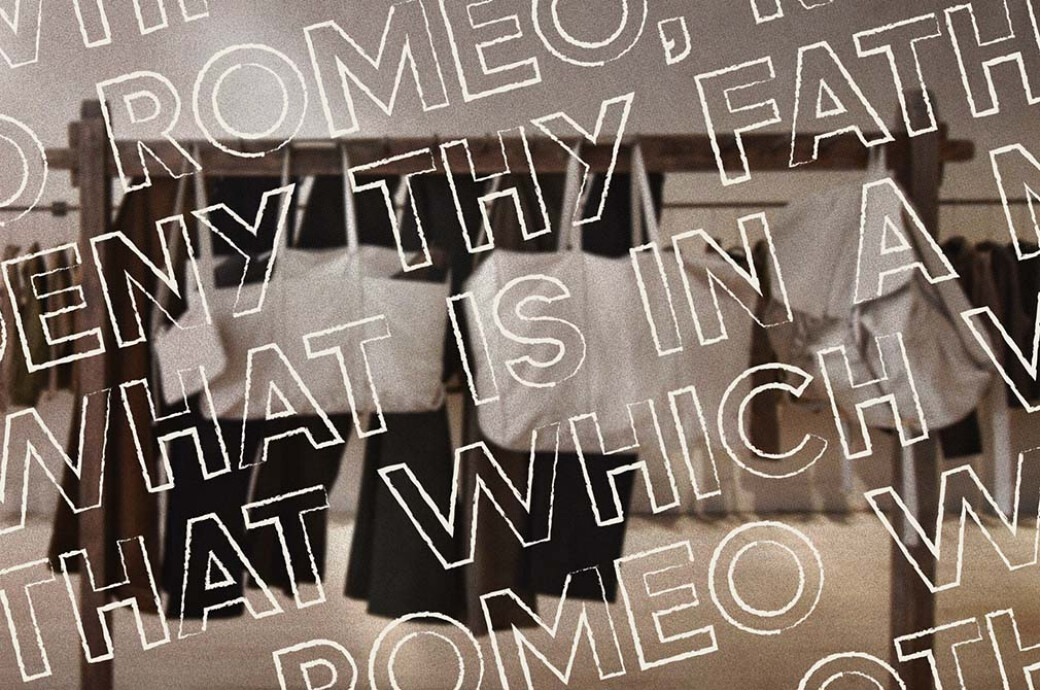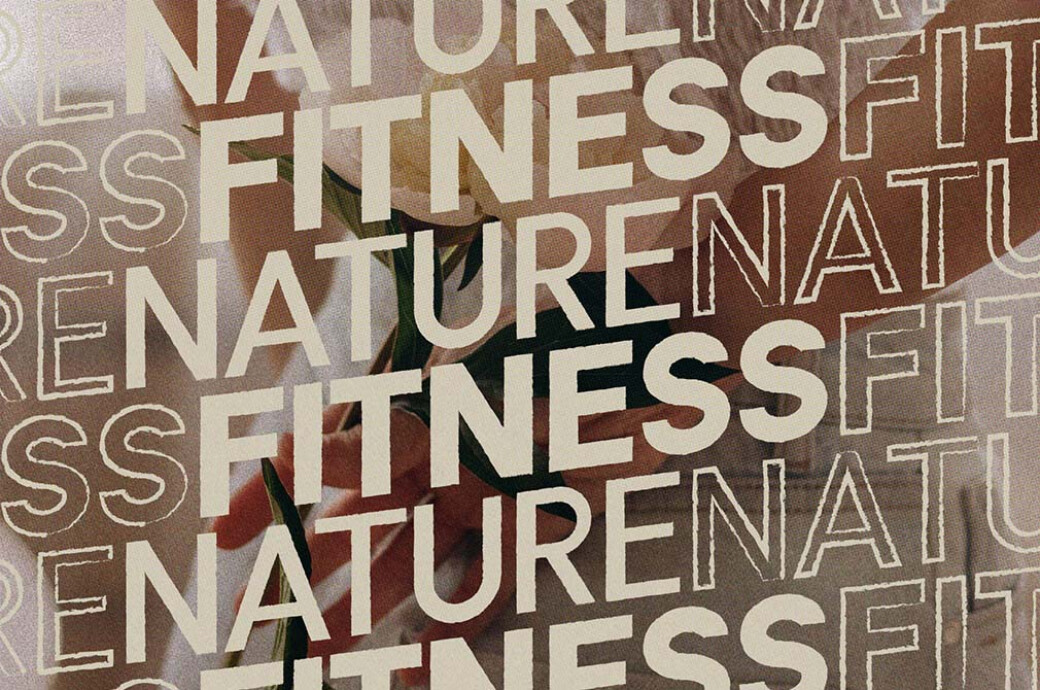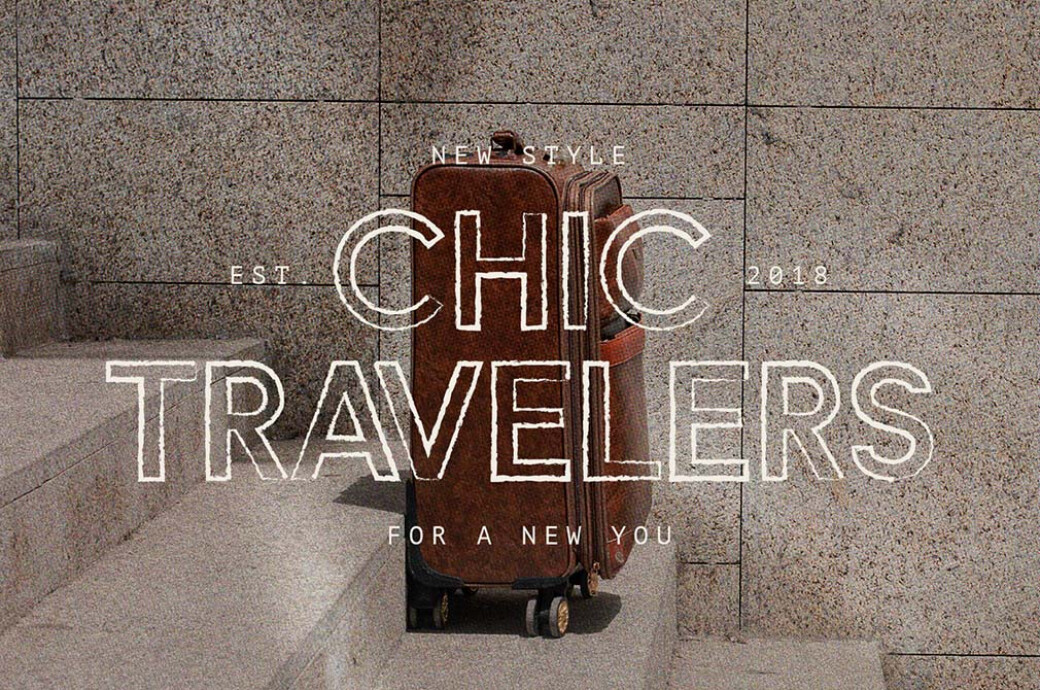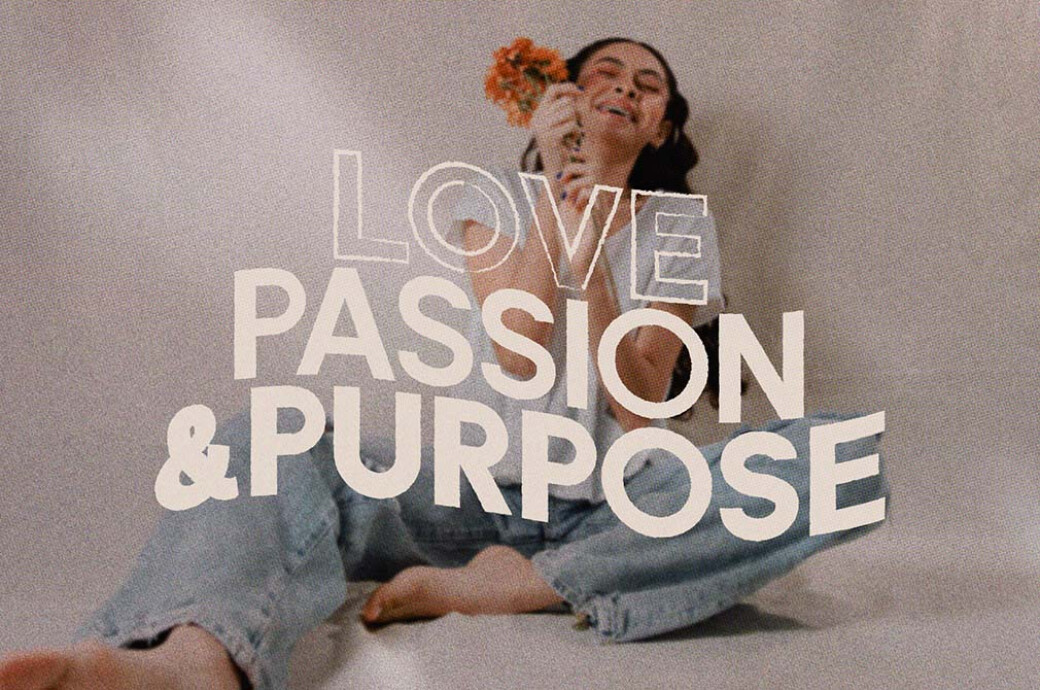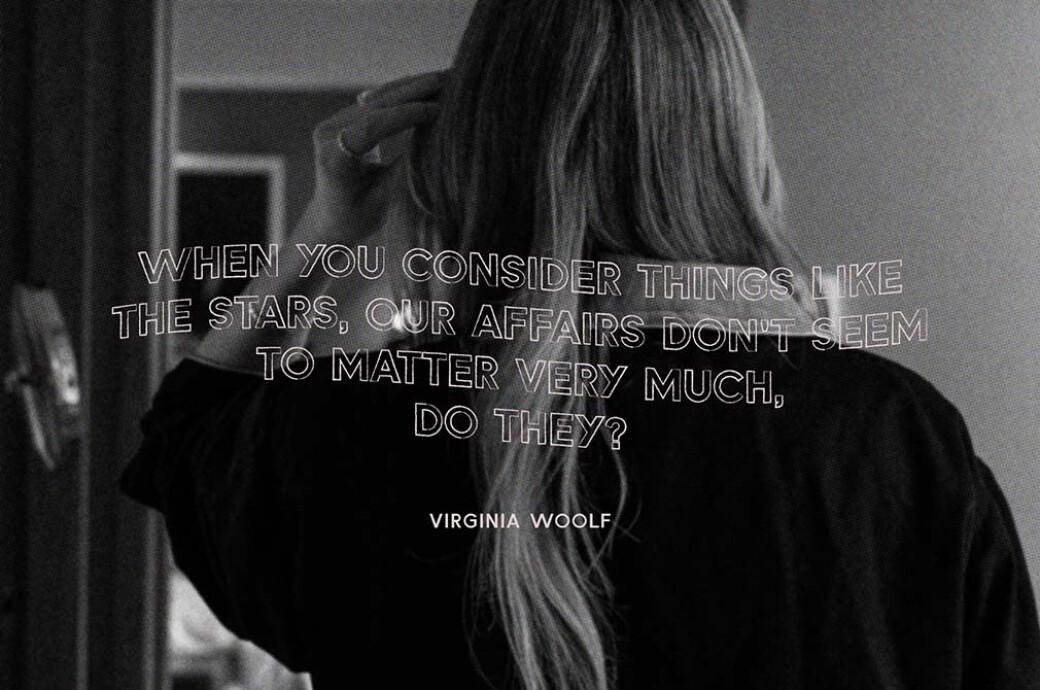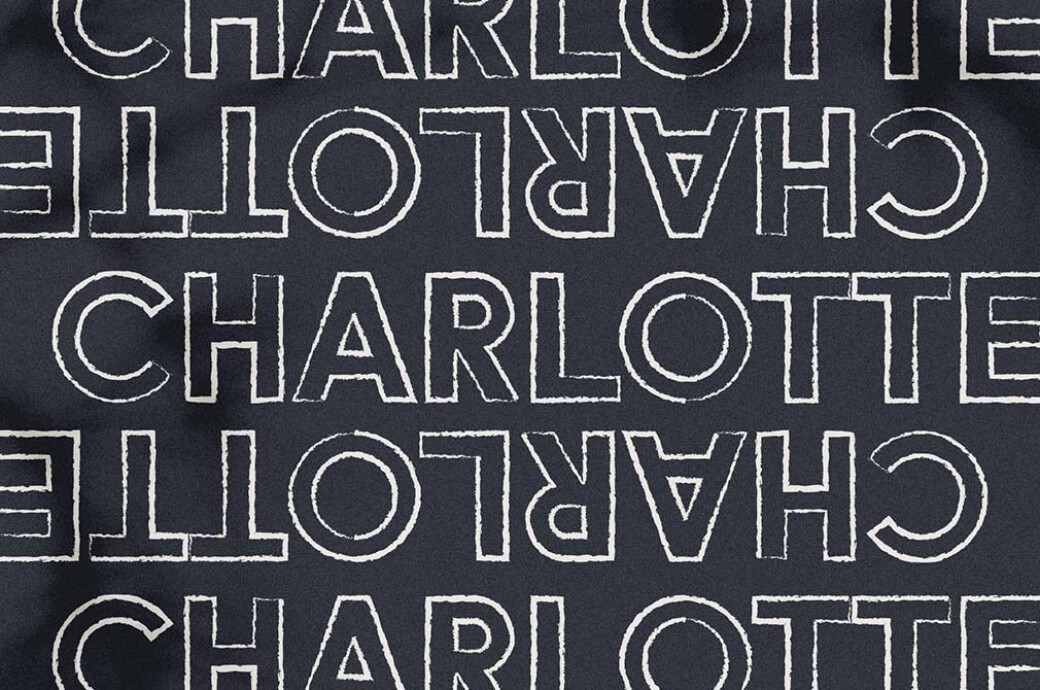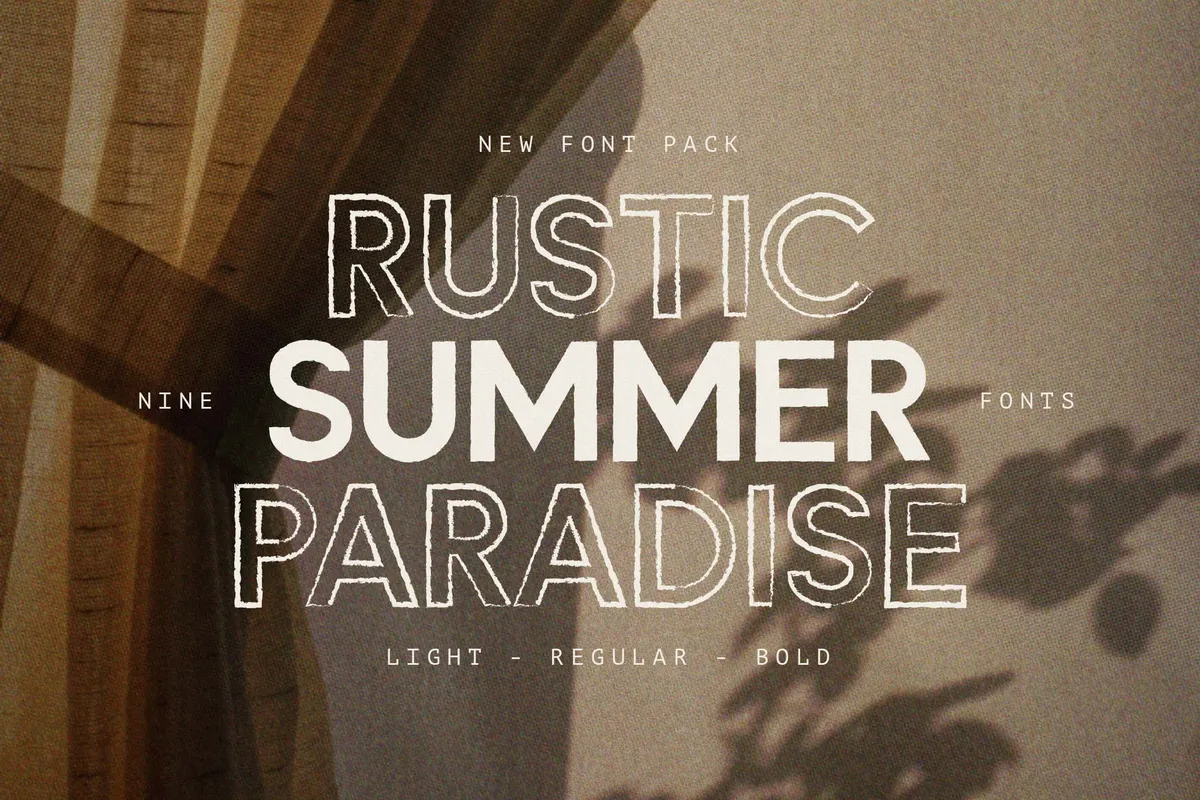
Rustic Summer Paradise Font Family
Ready to start the most exciting adventure of the summer? Start with packing the SPF, comfy boots, and an extensive font family to express every emotion you'll experience.Chic, adventurous, snazzy, rustic — yes, it's all about the Rustic Summer Paradise, a family with 9 unique fonts. This collection will be your best company in summer-themed design, and you can use it as a cozy reminder of the warm August nights when the chilly days come. The typography variety covers all possible styles, from Light and Solid Light to Bold and Rustic Solid. A complete set of uppercase characters if there too, as do the numbers, multilingual support, and punctuation.